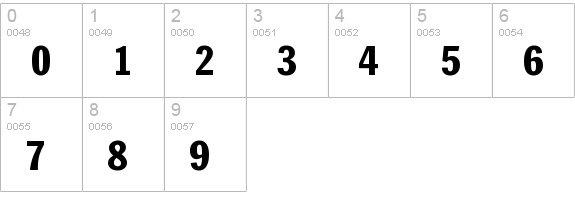
Franklin Goth Ext Condensed Font Details
Franklin Goth Ext Condensed is a distinctive, condensed-width variant in the Franklin typeface family \xE2\x80\x94 well suited to design and typography projects.
Franklin Goth Ext Condensed font is a sleek and modern typeface that exudes sophistication and style. Its condensed design allows for maximum impact, making it perfect for headlines, titles, and branding projects. With its clean lines and sharp edges, this font commands attention and leaves a lasting impression. The best part? Franklin Goth Ext Condensed font is available for free download at FontsMarket.com. Whether you're a designer looking to add a touch of elegance to your work or a business owner seeking a professional font for your brand, this typeface will exceed your expectations. Don't miss out on the opportunity to elevate your designs with this premium font - get it now for free at FontsMarket.com!